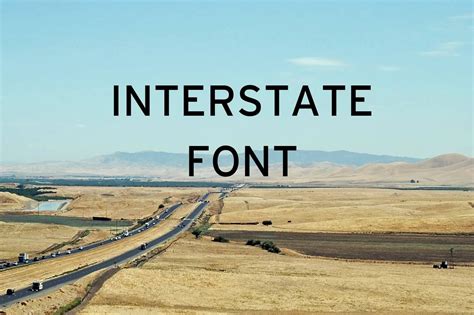
Web interstate font pairings about description efficient and gruff, interstate has become a favorite for branding, packaging,.
Web interstate font pairings about description efficient and gruff, interstate has become a favorite for branding, packaging,. Web interstate font pairings about description efficient and gruff, interstate has become a favorite for branding, packaging,.